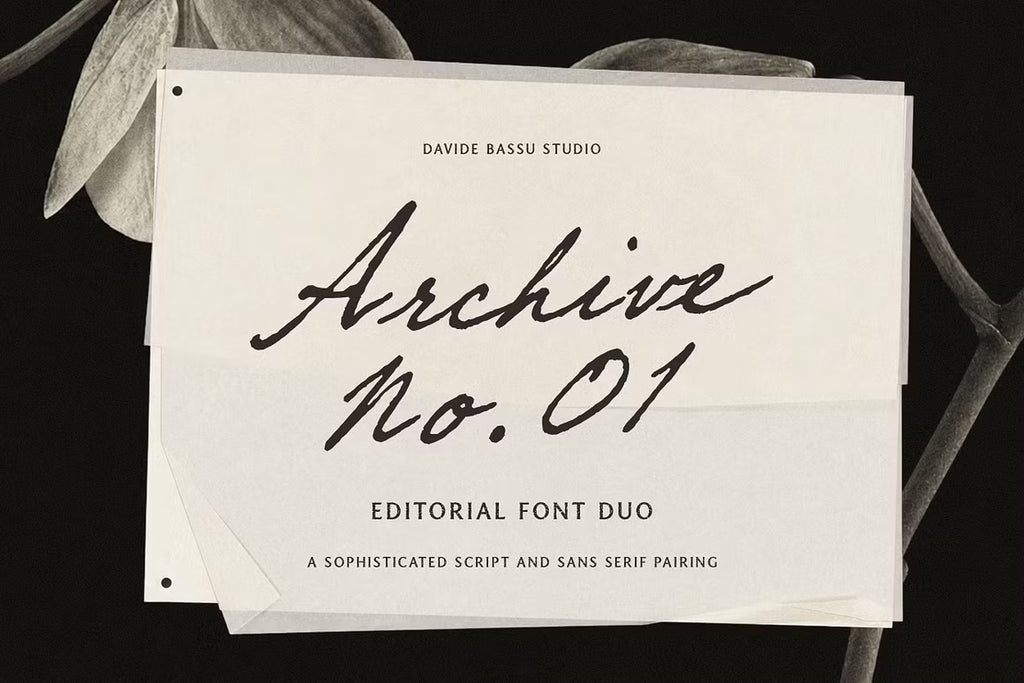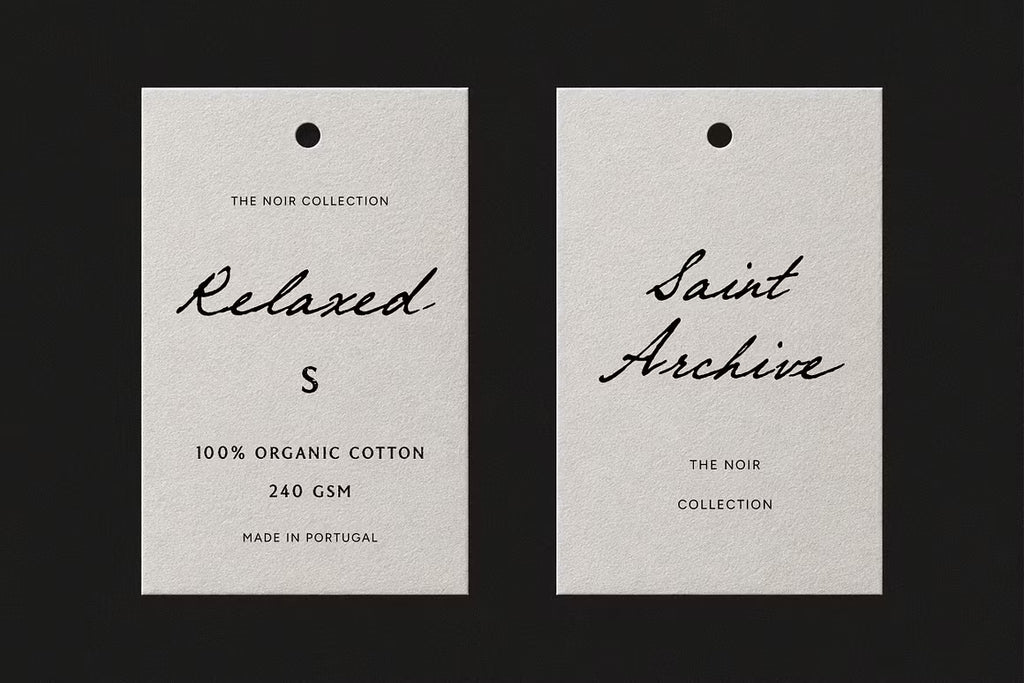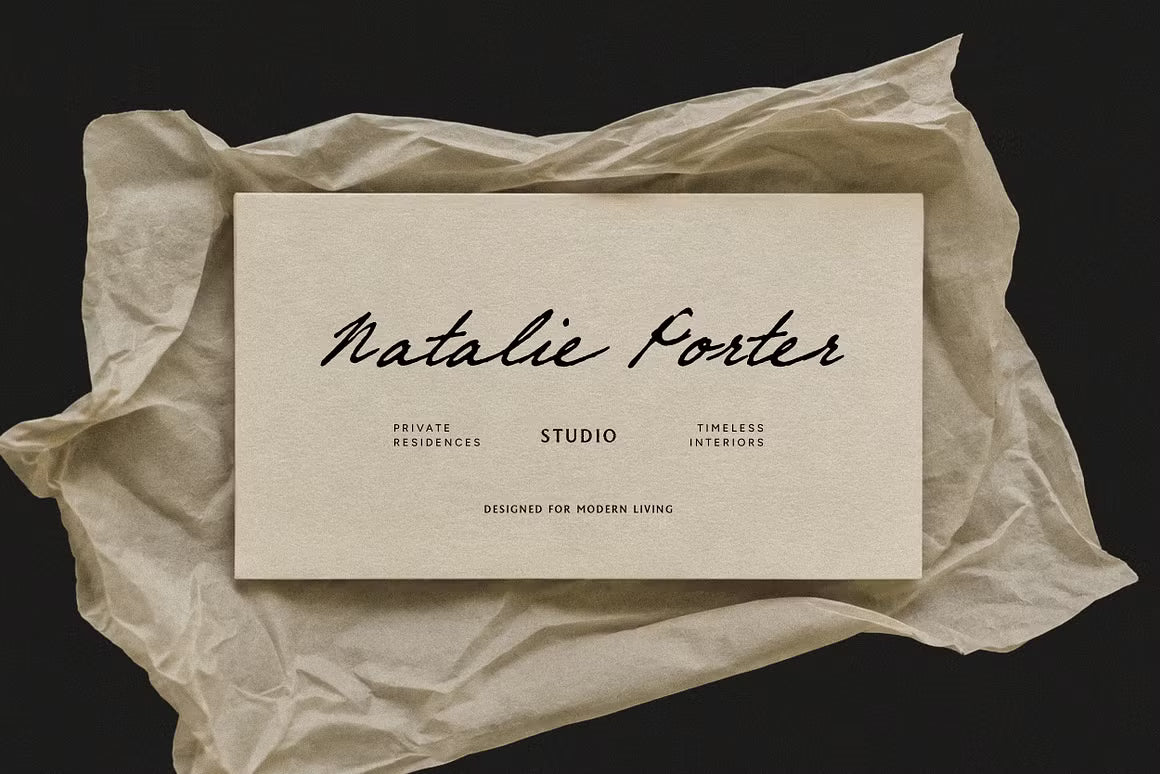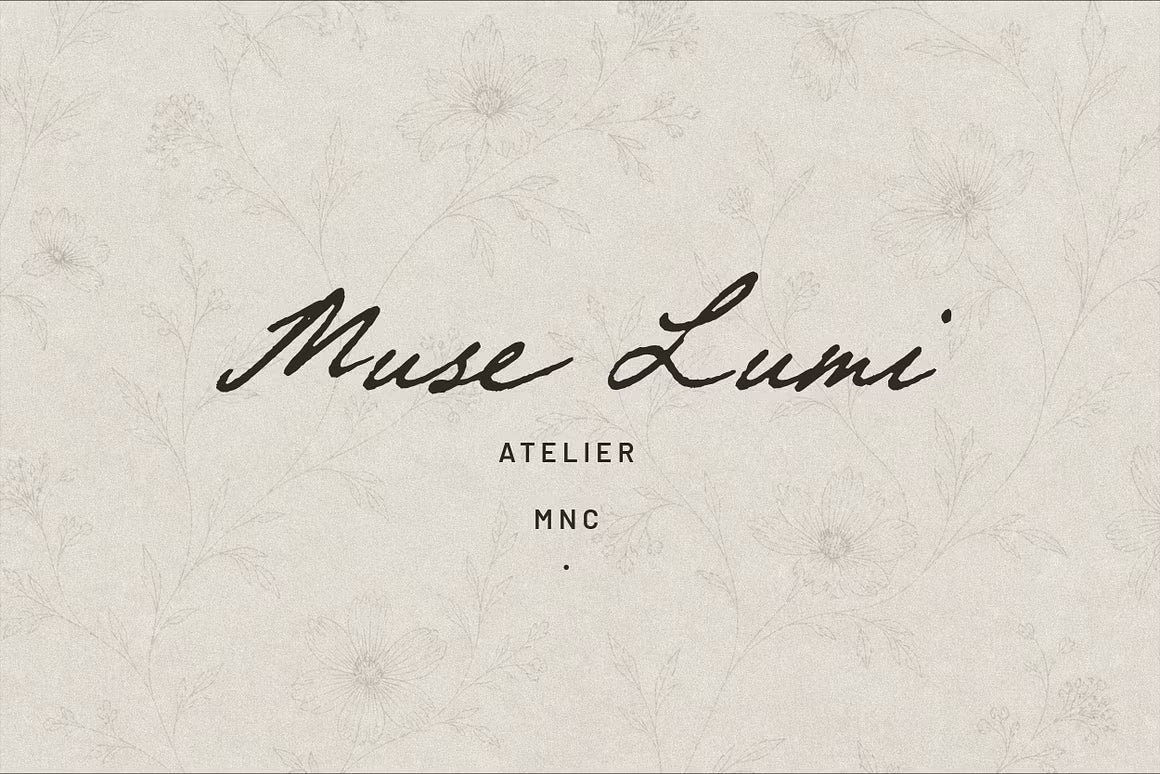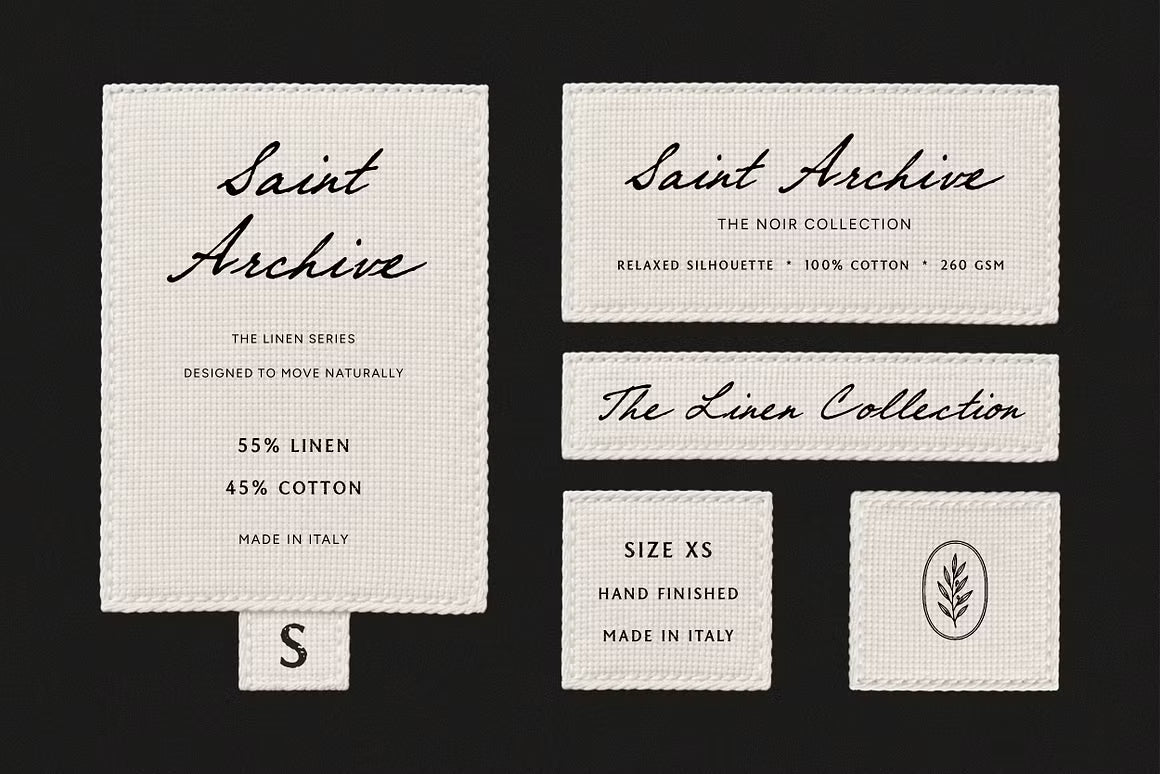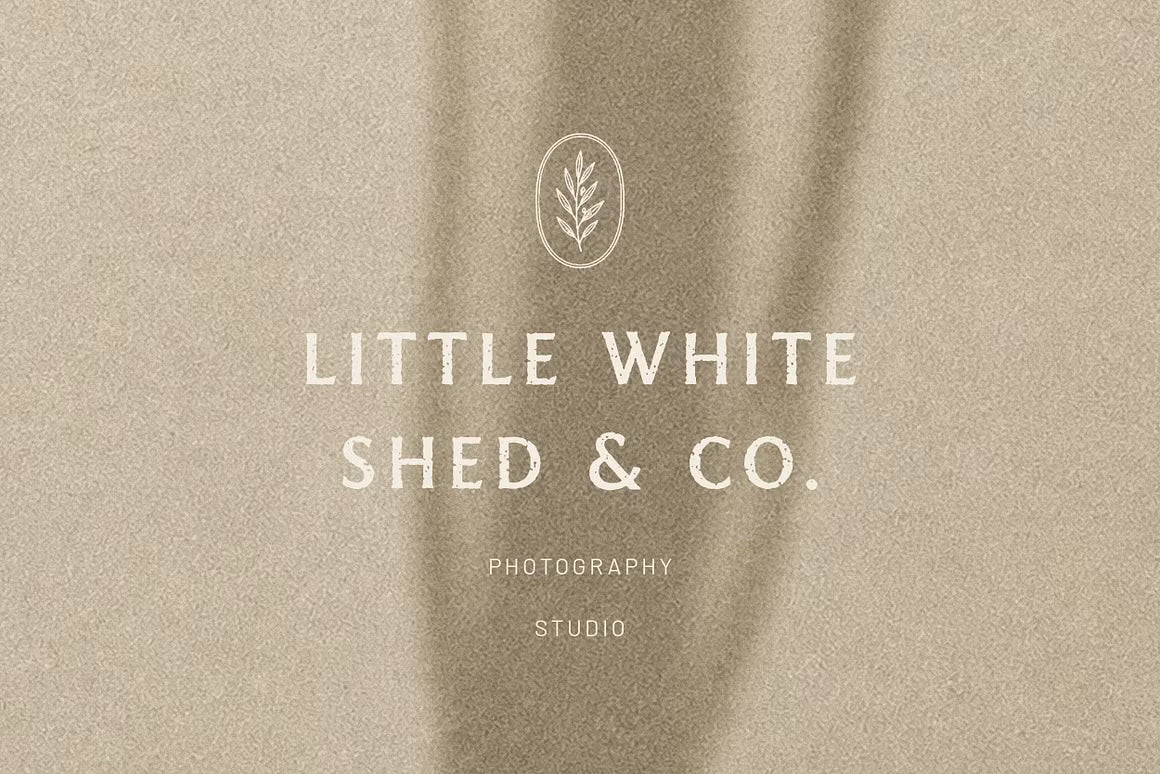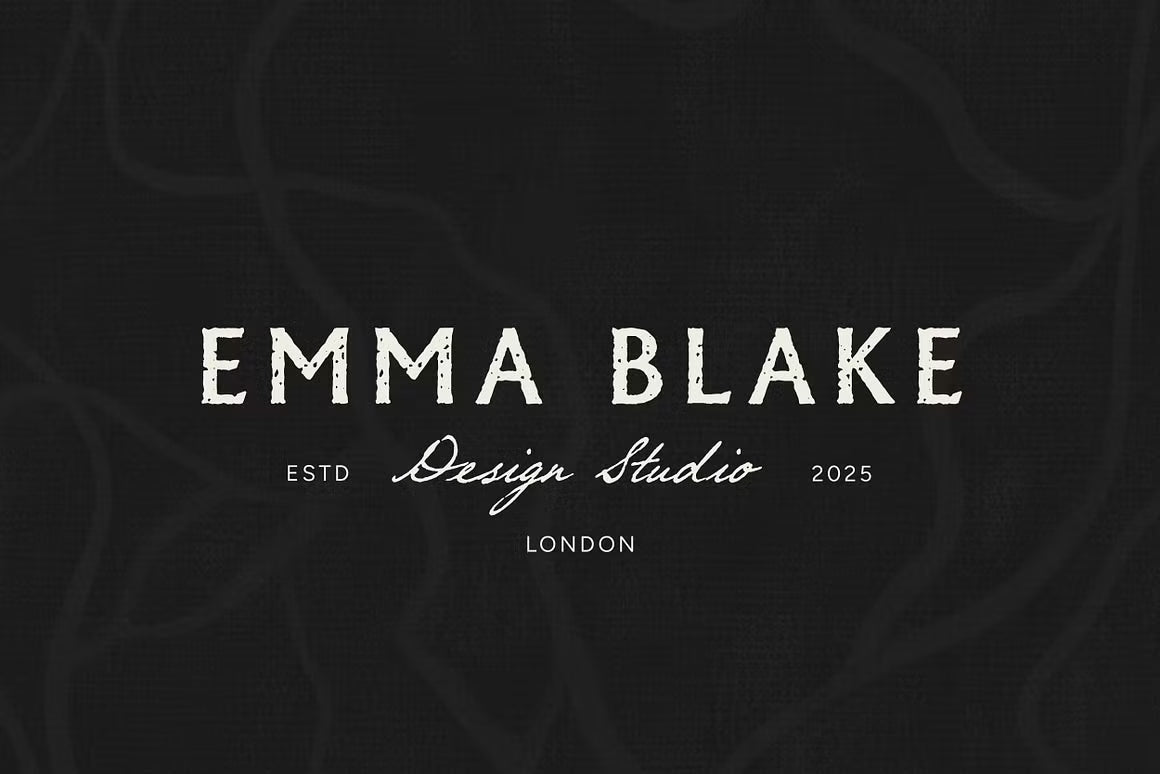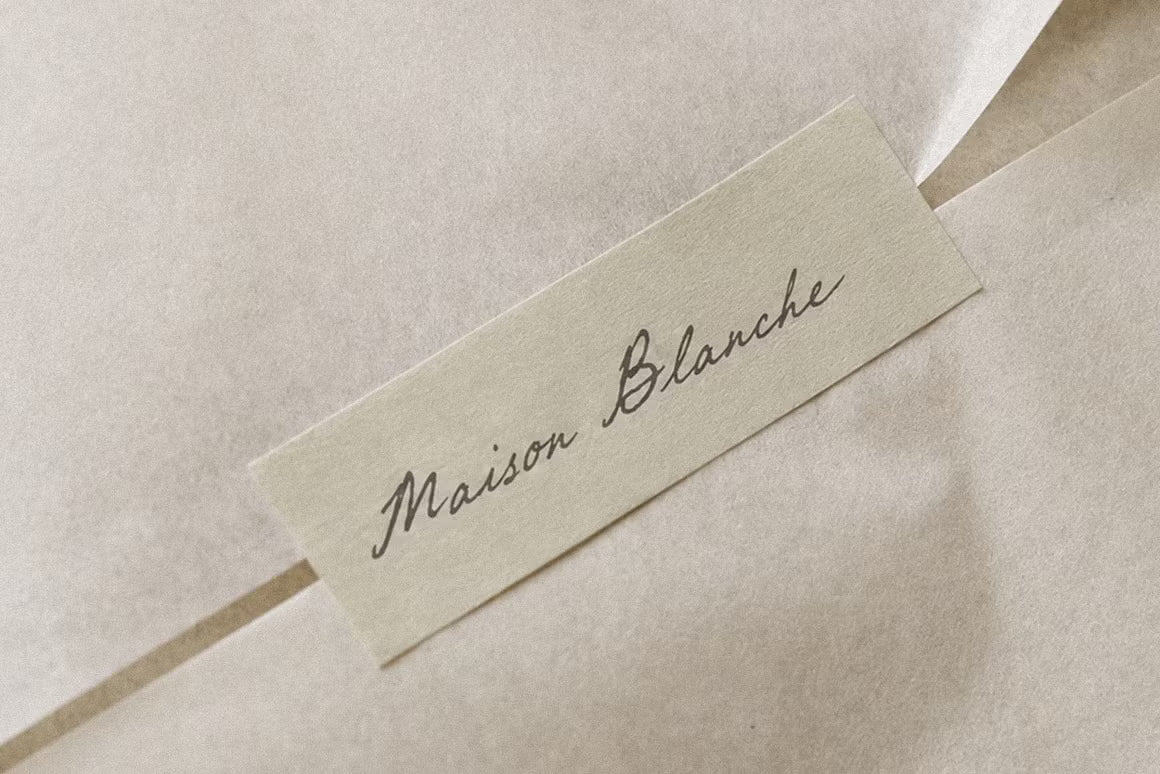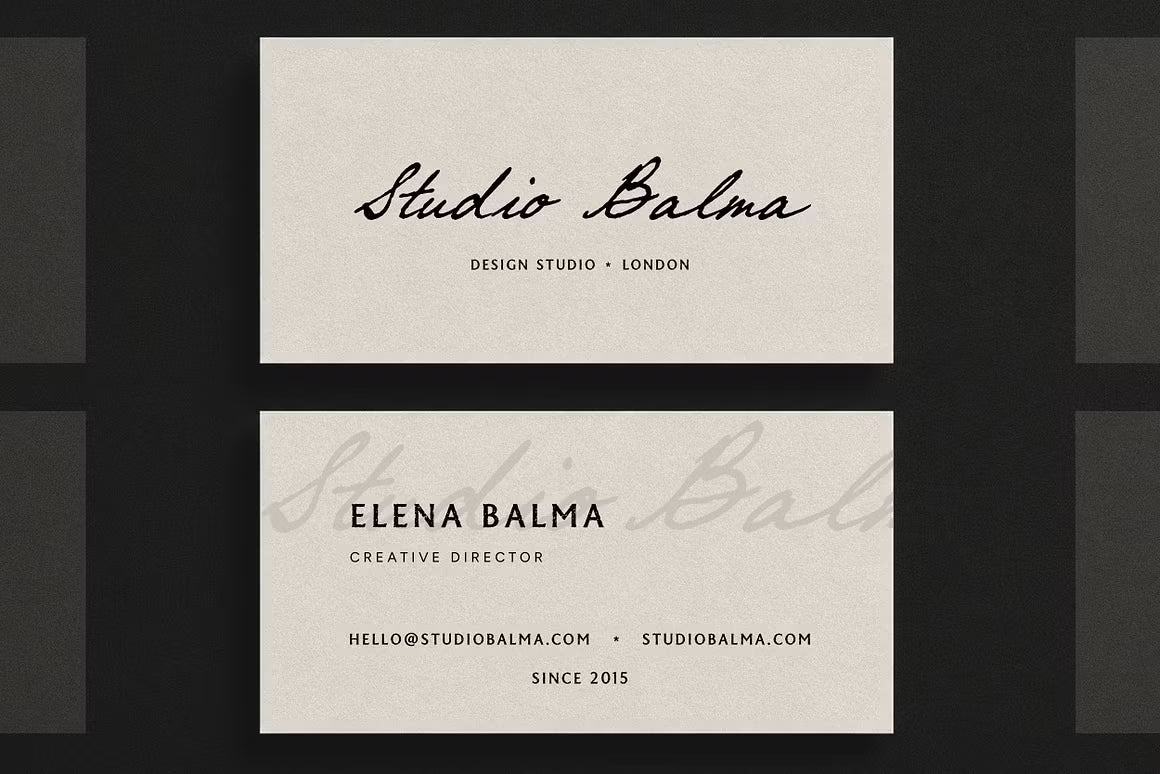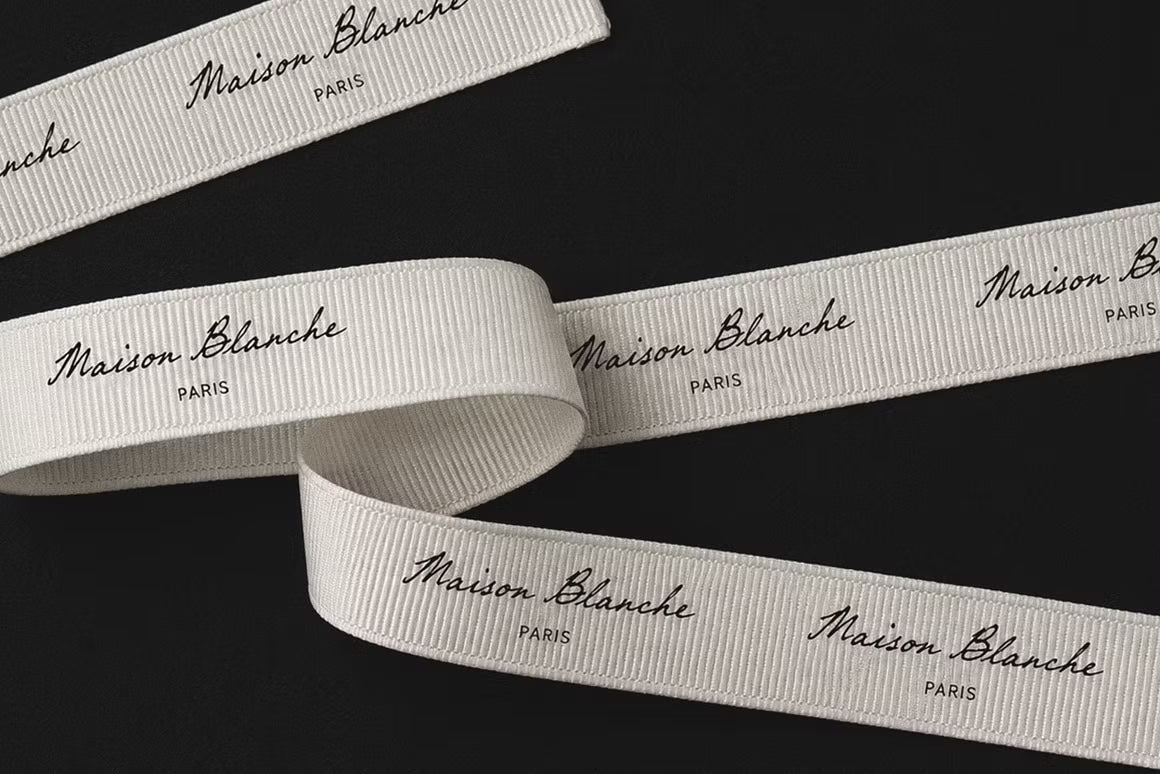
Archive 01 – Editorial Font Duo is a refined pairing that feels pulled from the pages of a classic magazine. The high-contrast serif brings sharp, authoritative presence to headlines and wordmarks, while the expressive handwritten script adds warmth, movement, and a personal touch to quotes, signatures, and accent lines.
Together they create a balanced, editorial-ready system that’s equally at home in luxury branding, fashion editorials, wedding stationery, packaging, and premium digital projects. Clean, graceful, and highly versatile, Archive 01 gives your typography both structure and soul.
A thoughtful duo for designs that want to feel timeless, elevated, and intentionally crafted.